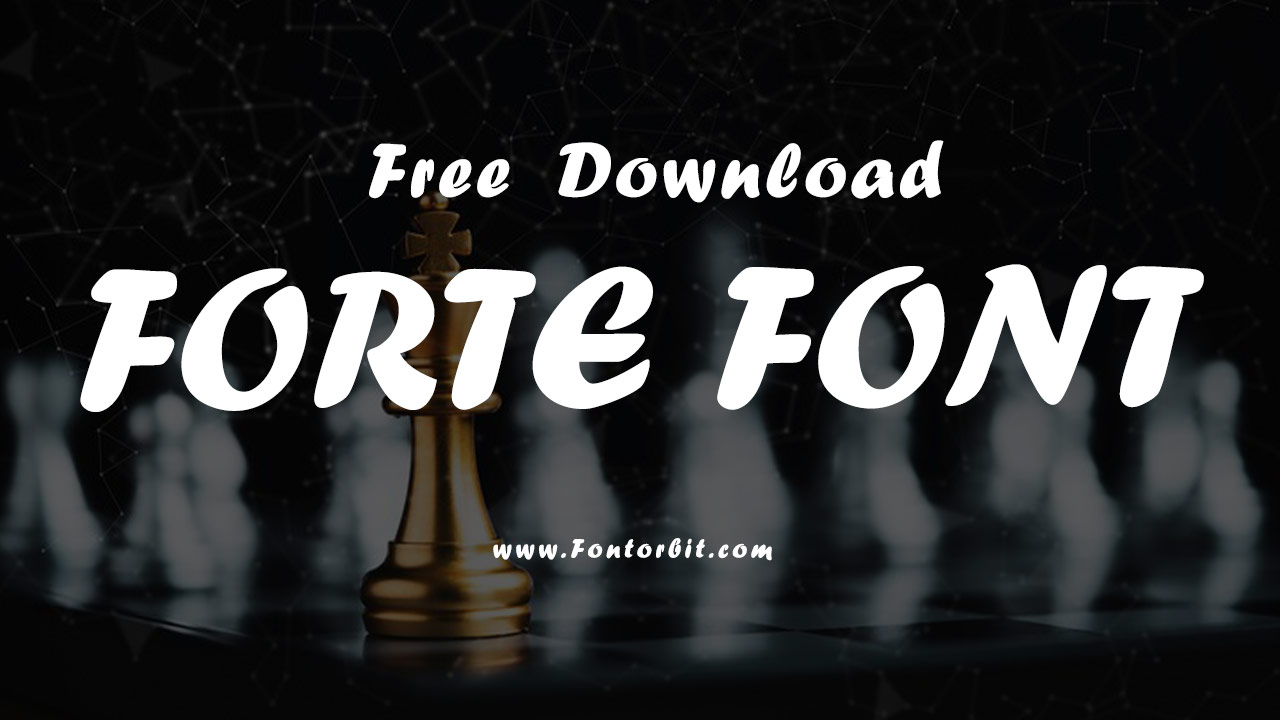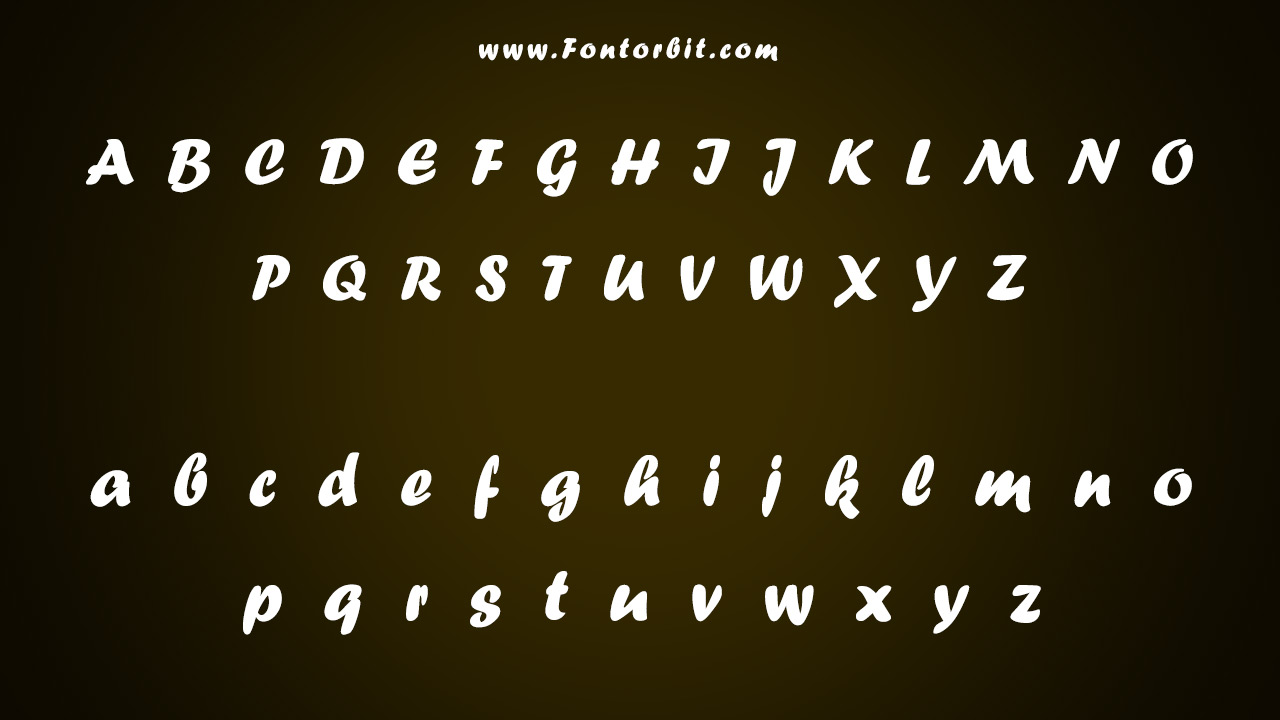
Forte, a distinctive script typeface designed by Austrian commercial artist Carl Reissberger, was first published on May 8, 1962.
Known for its bold, brush-like strokes inspired by the natural forms of reeds, Forte adds a unique and informal touch to any design. Its striking appearance makes it a popular choice for advertising, flyers, and creative projects.
Type Of Forte Font (Font Family)
- Forte Regular
- Forte SemiBold
- Forte Fill
- Forte Line
| Style: | Brush |
Using Occasions Of The Font:
Forte is ideal for:
- Advertising and promotional materials
- Flyers
- Labels
- Menus
- Web page design
- Presentation slides
- Trade show displays
Wrap Up:
Forte, designed by Carl Reissberger, is a stylish script typeface inspired by the natural forms of reeds. Its bold, hand-drawn appearance contrasts well with sans-serif and classical modern types. Suitable for informal and creative applications, Forte adds a unique, personal touch to your design projects.
FAQs On Forte Font:
1.What Are The Cultural Influences On The Development Of Forte Font?
Forte’s design is influenced by natural forms, specifically the long stems and furry heads of reeds. This botanical inspiration contributes to its unique, brush-like appearance.
2.What Are The Contemporary Uses Of Forte Font In Graphic Design?
Forte is used in advertising, flyers, and labels, offering a stylish, hand-drawn look that stands out in various design contexts.
3.What Are The Best Color Combinations To Use With Forte Font?
Forte pairs well with contrasting colors to highlight its bold script style. Opt for vibrant or complementary hues to enhance its visual impact.
4.What Are The Best Practices For Using Forte Font In Web Design?
Use Forte for headlines and decorative elements rather than body text. Ensure adequate spacing and avoid tight kerning to maintain readability.
5.What Makes Forte Font Unique?
Forte stands out with its hand-drawn, brush-like strokes inspired by natural forms, giving it a distinctive and informal character.
6.Is Forte Font Easy To Read?
Yes, Forte is designed for readability with its clear, brush-like characters, making it suitable for various textual content in both print and digital formats.